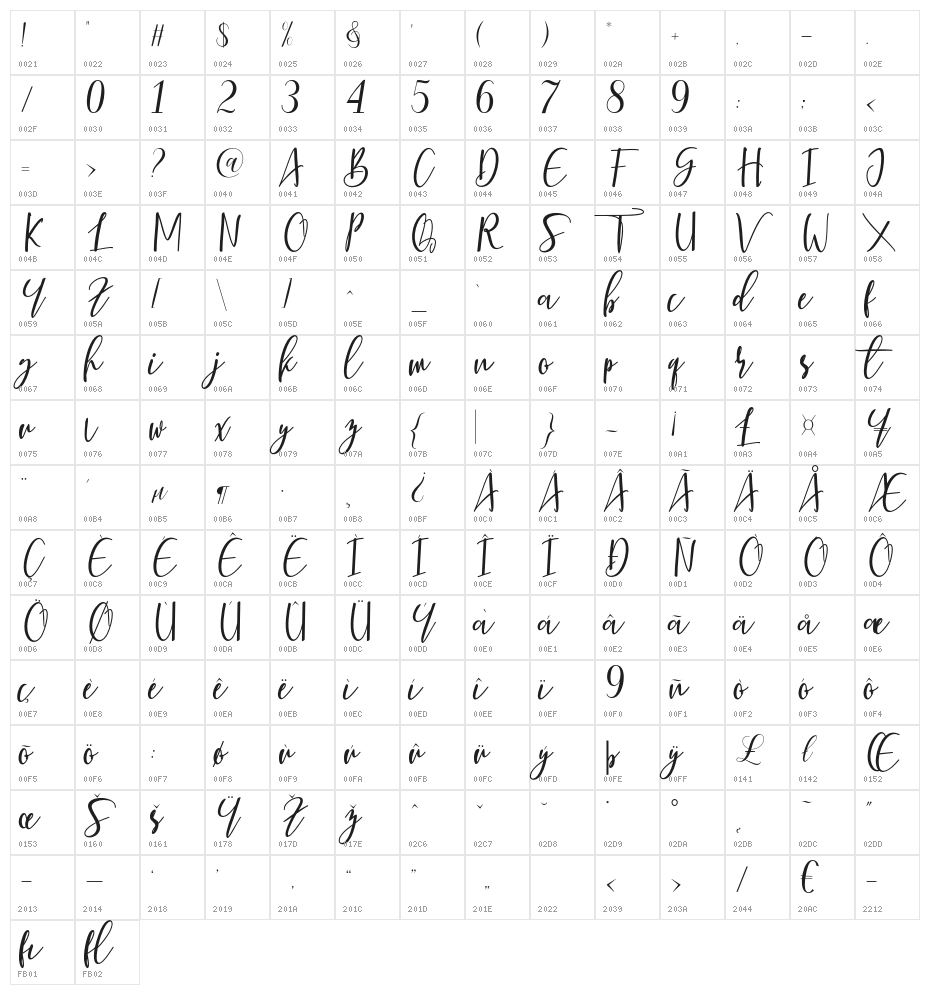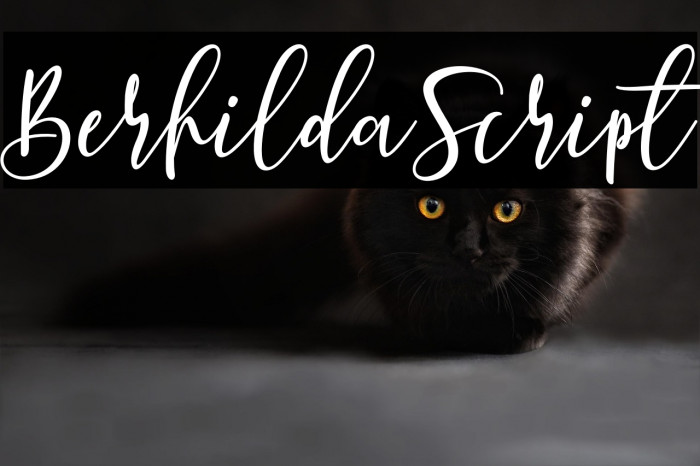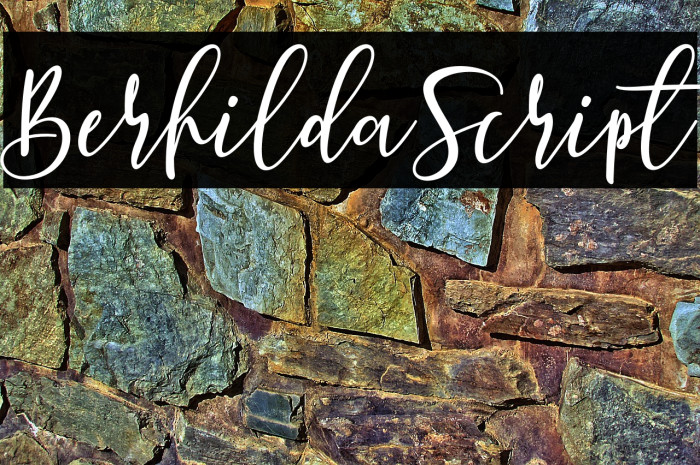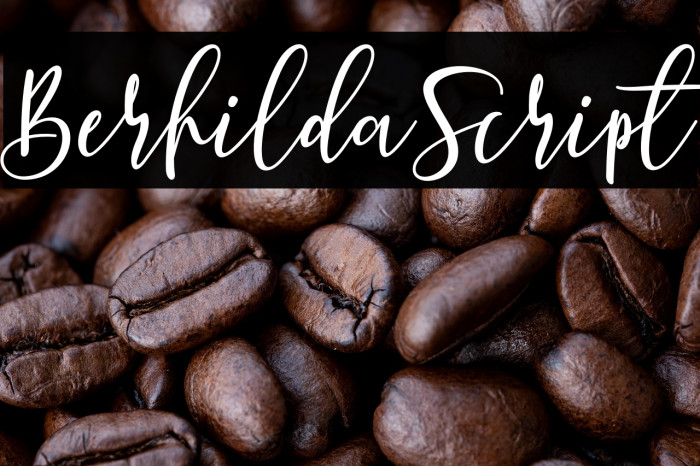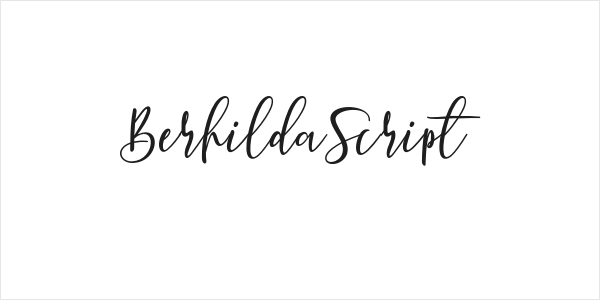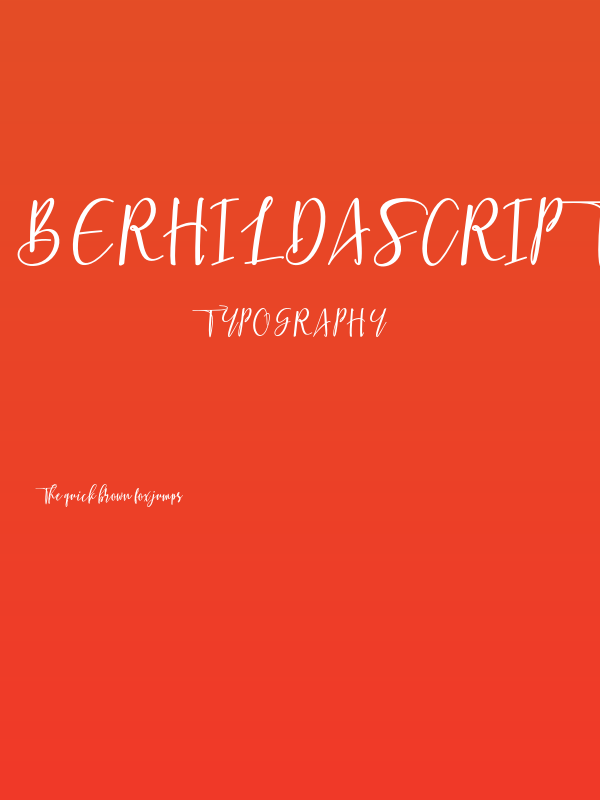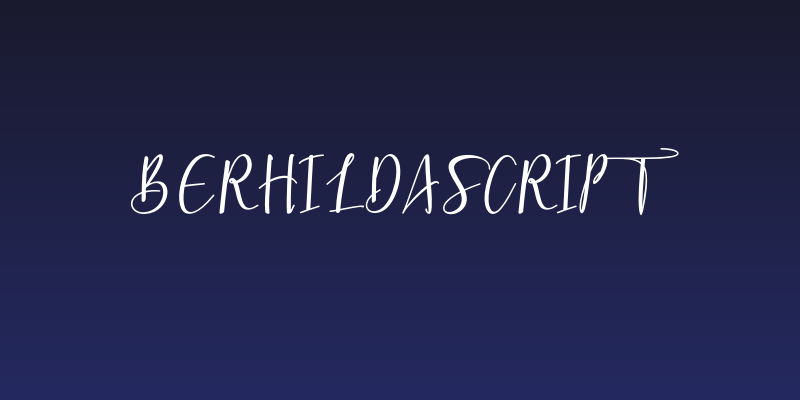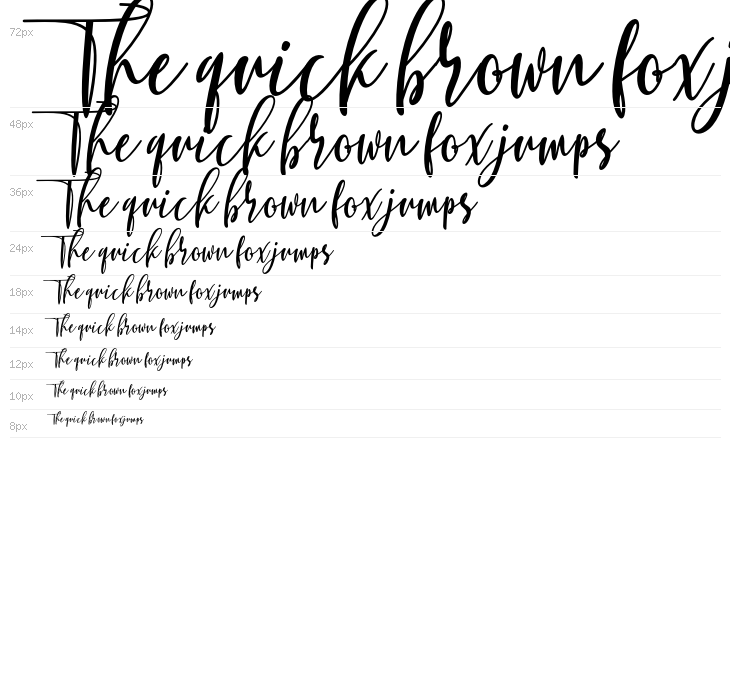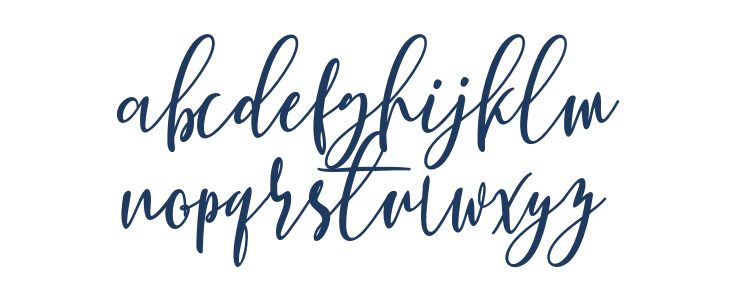
BerhildaScript Font
BerhildaScript Description
This font features a dynamic and fluid script style, characterized by its elegant and flowing letterforms. The uppercase letters are tall and slender, with graceful curves and loops that create a sense of movement and sophistication. The lowercase letters maintain a consistent rhythm, with smooth connections that enhance the script's readability. The numerals are stylish and complement the overall aesthetic, while the special characters add versatility to the font's use. This script font is perfect for projects that require a touch of elegance and personal flair.
| Proposed Projects | Ideal for wedding invitations, branding, greeting cards, and elegant logo designs. |